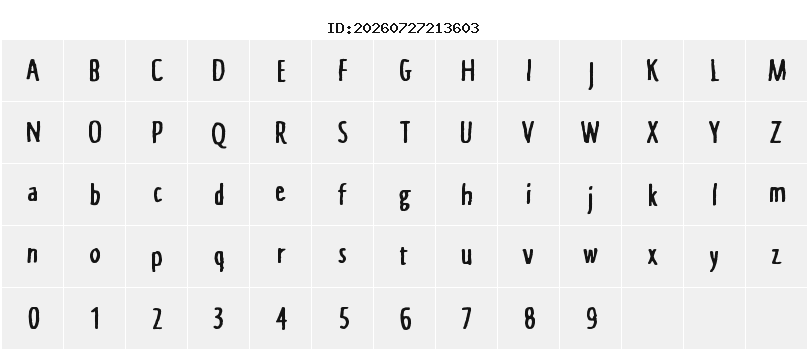
Instant Nirvana Preview
• Font Name: Instant Nirvana
• Full Font Name: Instant Nirvana
• Version: Version 1.00 November 9, 2015, initial release
About Instant Nirvana.ttf
Instant Nirvana.ttf is a modern, elegant sans-serif font designed for ultimate readability and visual harmony. Perfect for branding, headlines, web design, and print materials.